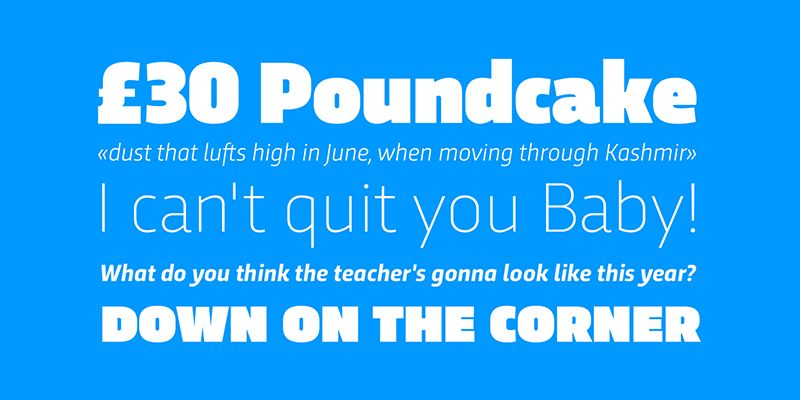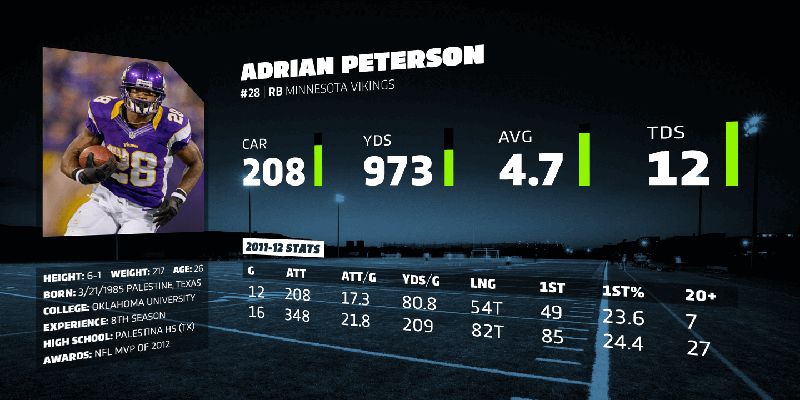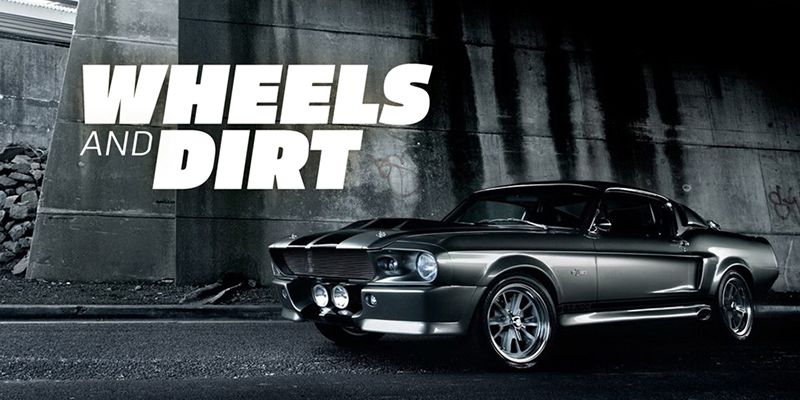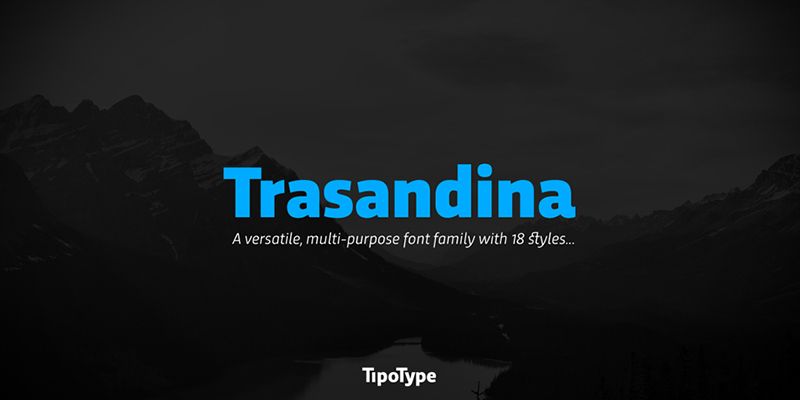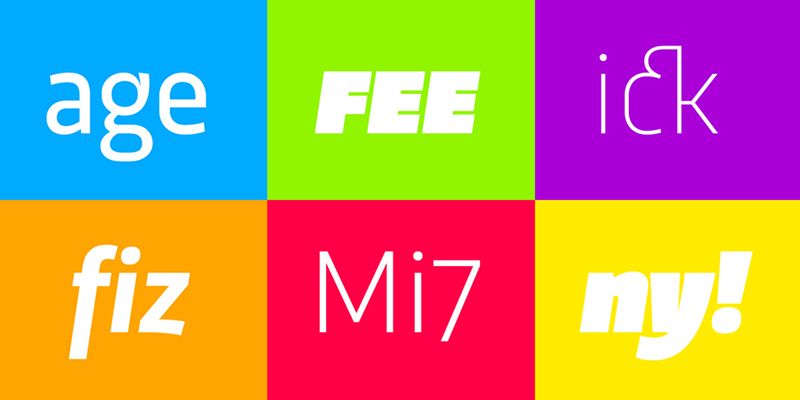
Trasandina’s is a flexible typeface: On one hand is neutral and legible due to its humanistic influence. At the same time it’s perfect for pieces that need more personality, because of its geometric approach in lighter and bolder weights.